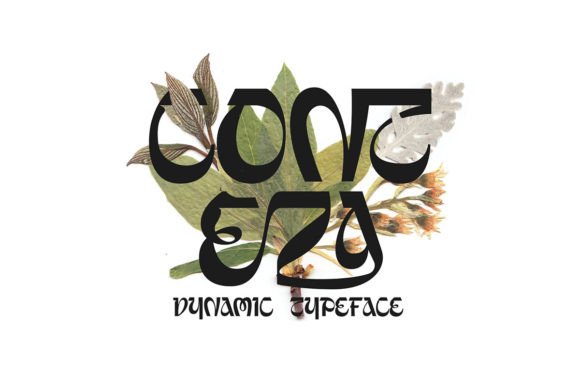
Step into the realm of typographic brilliance with Conteza Font, a display font that redefines modern blackletter elegance. This masterpiece is a harmonious fusion of classicism and modernity, crafted to elevate your designs, projects, and artworks to new heights of sophistication and creativity.
Journey through the ages with Conteza Font, where the charm of blackletter meets the vibrancy of contemporary aesthetics. Its intricate strokes and graceful curves evoke a sense of timeless elegance, while its clean lines and sharp angles infuse your designs with a touch of modernity. The result is a font that's both classic and cutting-edge, sure to leave a lasting impression.
Unleash your imagination and watch your words transform into captivating works of art. Conteza Font's versatility knows no bounds, effortlessly adapting to a plethora of applications. From enchanting logos and branding designs to eye-catching posters and social media graphics, this font is your ultimate creative companion. Its distinct character shines through, adding a touch of sophistication and charm to every project you undertake.
Immerse yourself in a world of typographic enchantment with Conteza Font. Its carefully crafted glyphs and ligatures provide endless opportunities for customization, allowing you to create truly unique and personalized designs. Let your creativity flow freely as you explore the depths of this remarkable font, discovering hidden gems and unlocking new possibilities with every use.
Elevate your designs to the next level with Conteza Font, a font that embodies elegance, modernity, and boundless creativity. Its timeless appeal ensures that your projects will stand the test of time, while its contemporary charm keeps them fresh and relevant. Experience the transformative power of typography as you craft designs that resonate with your audience, leaving an indelible mark on their minds.